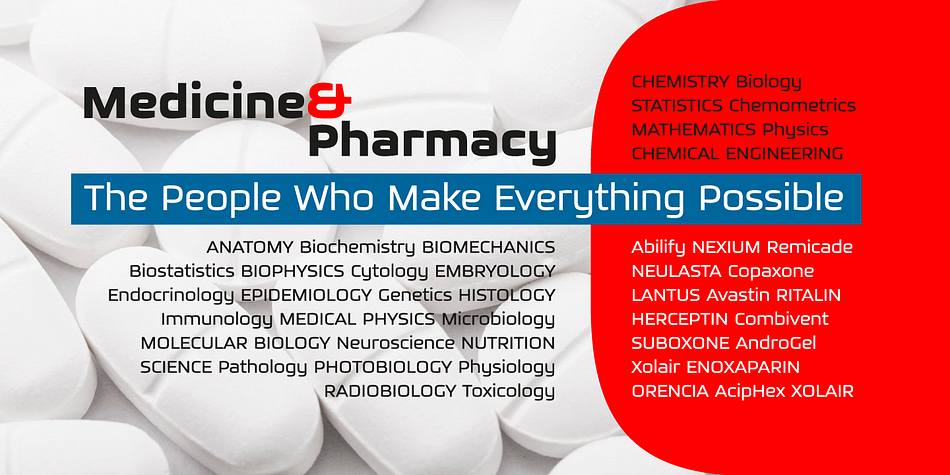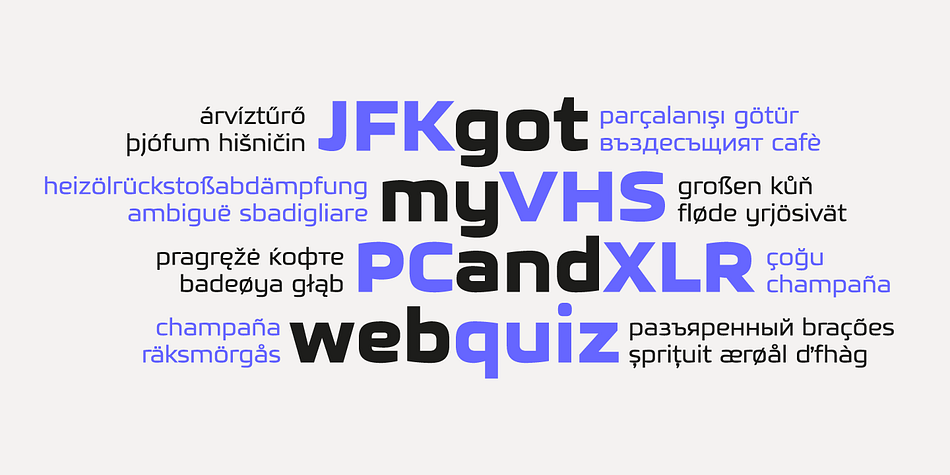
Glint
Glint is a sans serif and display sans font family. This typeface has six styles and was published by PESIC.
The Glint font family is a refined and redesigned version of the BigBang font.
Family contains 6 fonts - Glint Light, Regular, SemiBold, Bold, Black, and Rough. Glint font is a geometric modular sans serif font with square looking glyphs.
It’s suitable for use in all areas of natural sciences, architecture, urban planning, technology, electronics, medicine, sports, advertising, futuristic themes, modern art, film, multimedia, logo design…
Glint contains Cyrillic characters and Latin glyphs of all European languages.